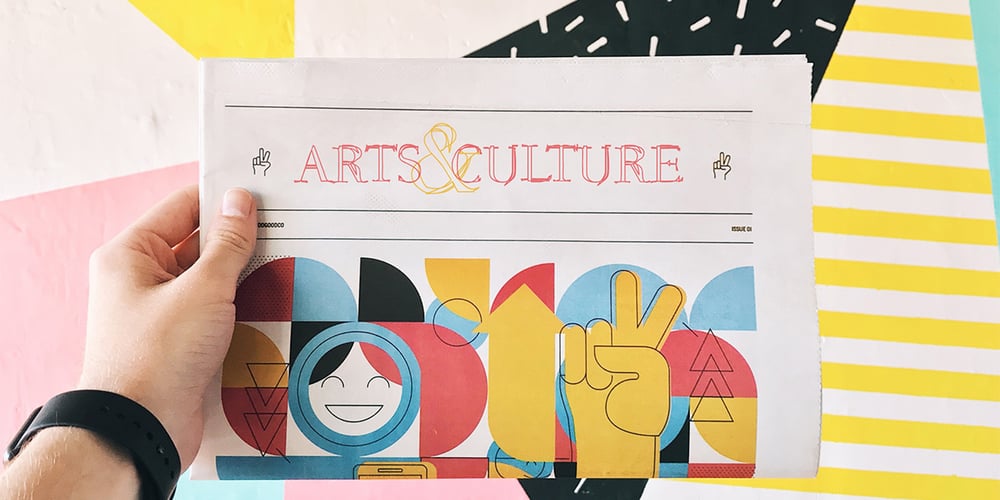
Rina BT
Rina BT font
Rina BT Font Family was designed by Eduardo Manso and published by Bitstream. Rina BT contains 2 styles and family package options. Eduardo Manso has brought new meaning to the word distressed. The contours of Rina have been randomly inverted, spiked and split to create this agitated look. Surprisingly, Rina remains legible. And just to turn the screw a little more, Manso created an outline version, Rina Linea.